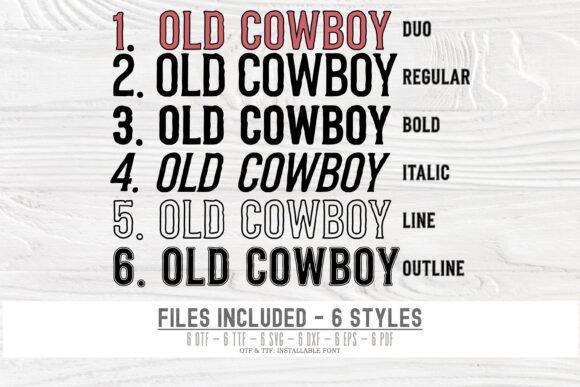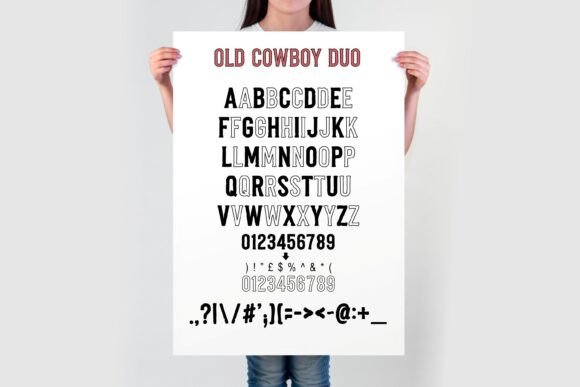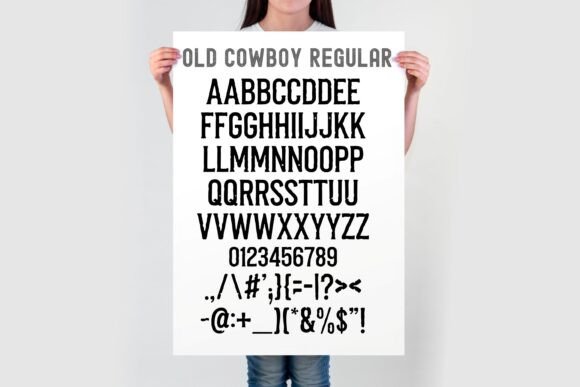
Introduction to Old Cowboy Bundle Font
“Old Cowboy” is a unique distressed font that evokes the spirit of the Wild West.
With rugged edges and a rustic character, it brings a bold and retro feel to any design Perfect for rodeo, cowboy themes, vintage signs, and industrial or adventure projects.